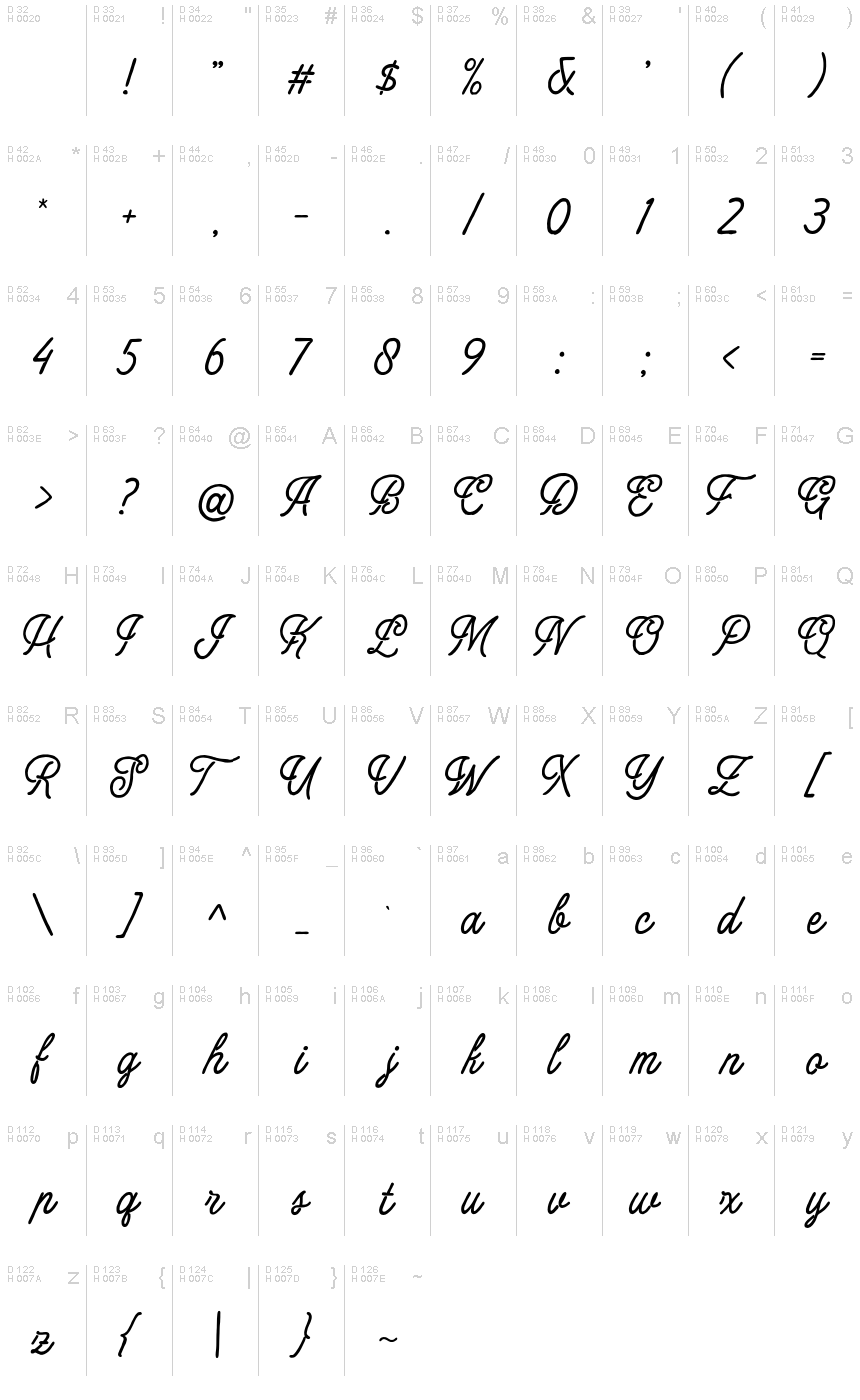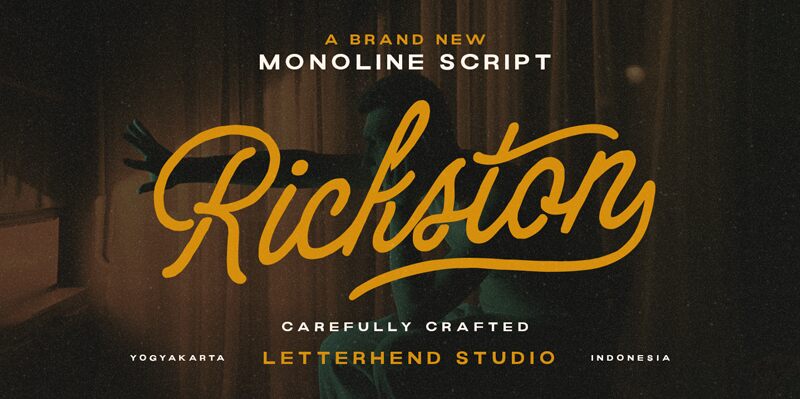
Rickston font by Letterhend Studio is a captivating monoline script known for its elegant and sophisticated appeal. With its condensed design, Rickston exudes a sense of charm and fluidity, making it ideal for personal branding, wedding invitations, or boutique logos. The seamless flow and graceful curves of this free font lend an air of timeless elegance to any project.
Whether you're looking to create eye-catching headlines or add a touch of finesse to social media graphics, Rickston offers versatility with style. Download the font today to elevate your designs with its unique blend of modern aesthetics and classic allure. Perfect for creatives seeking a distinctive typography solution that captures attention effortlessly.